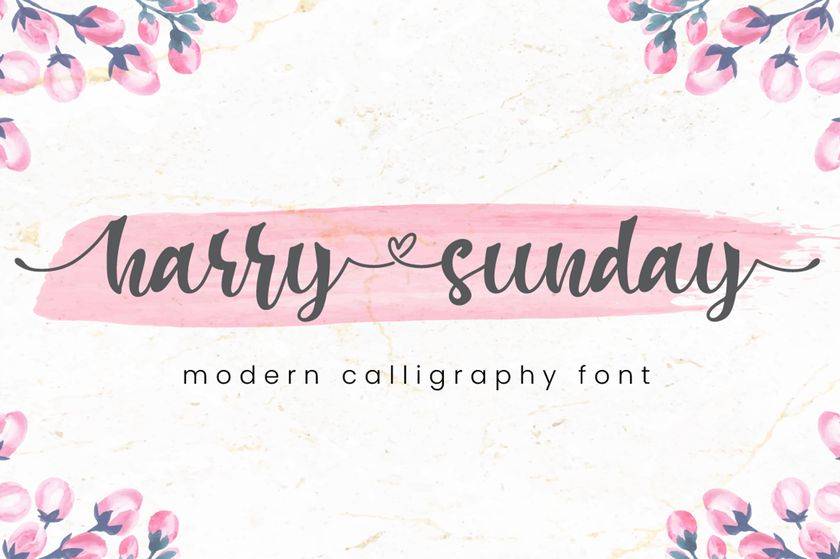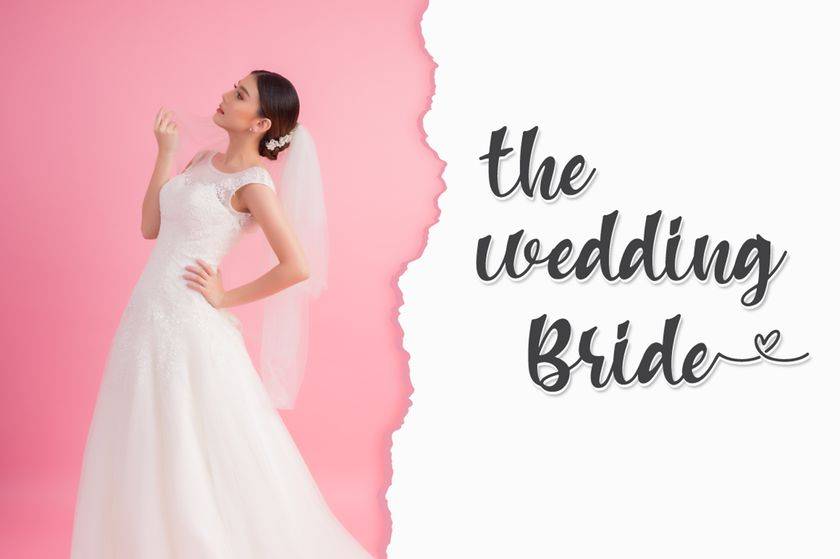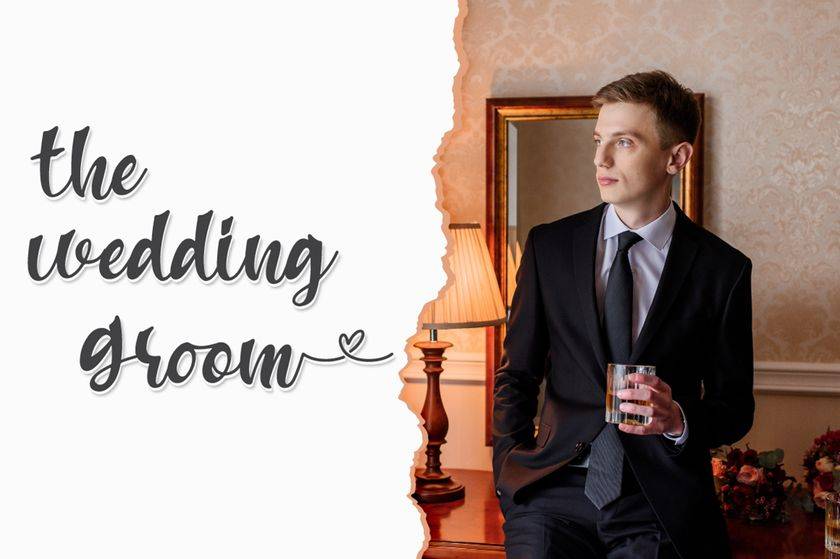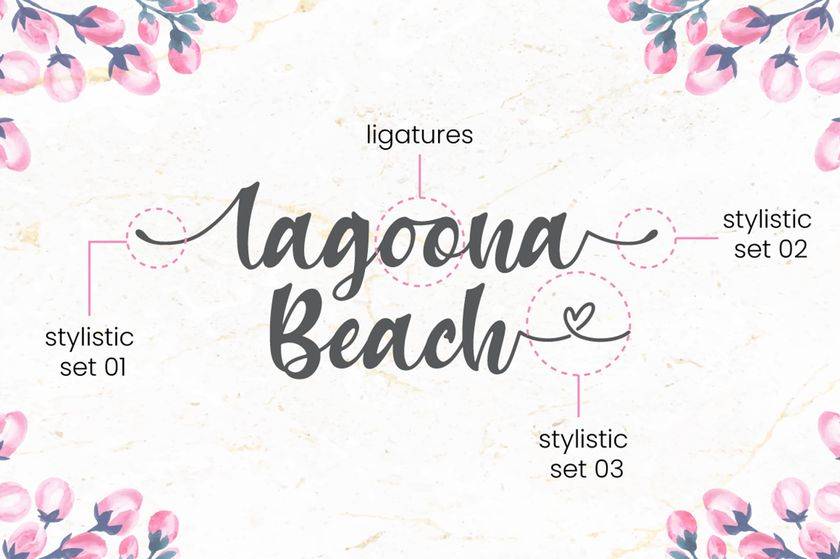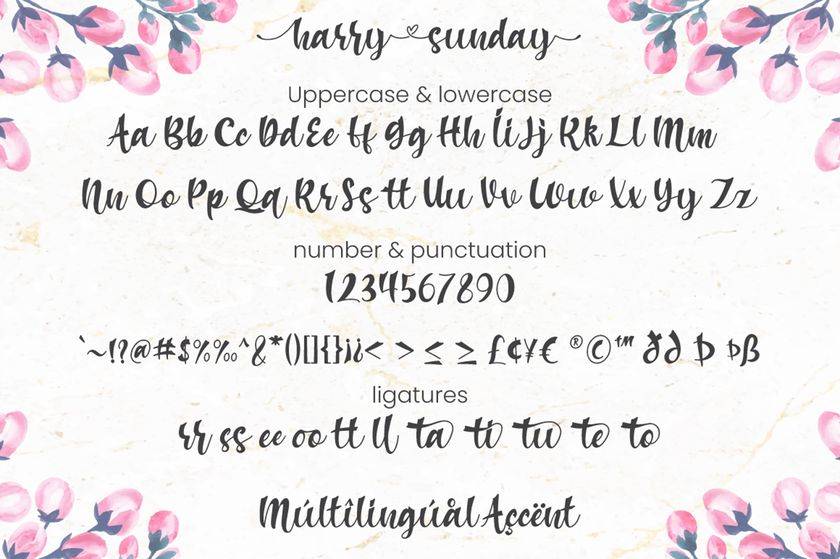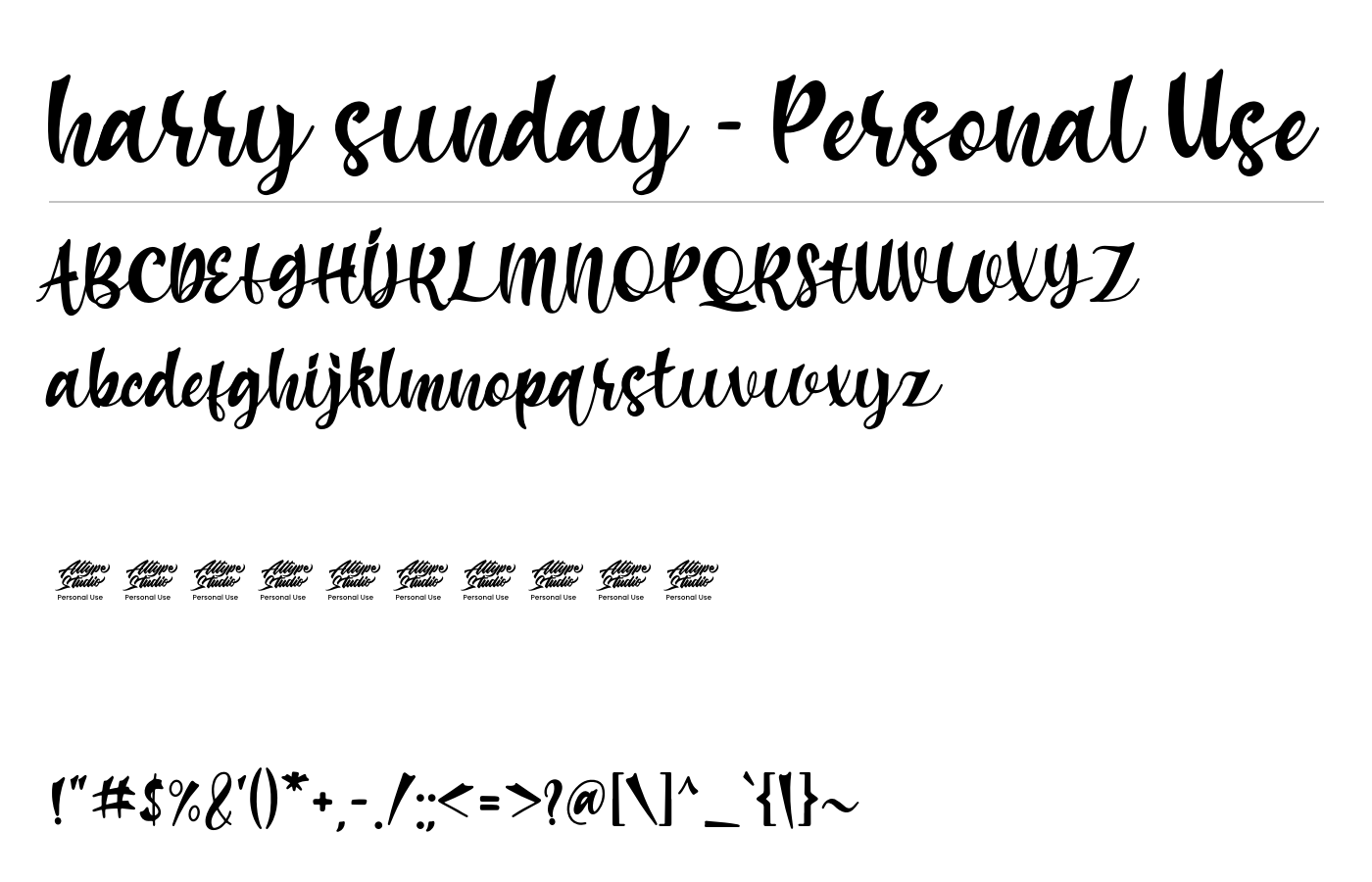
Harry Sunday is a lively and charming script font with a hand-lettered feel, featuring moderate weight, smooth curves, and playful, slightly irregular strokes. Its casual yet elegant style makes it perfect for branding, invitations, and creative projects that seek a friendly, warm, and approachable vibe. This font works especially well in headlines and logos where a personal, handwritten touch is desired.
Harry Sunday Font
About Harry Sunday Font
| Font family | Harry Sunday Font |
| Designer | Fadli Ramadhan Iskandar |